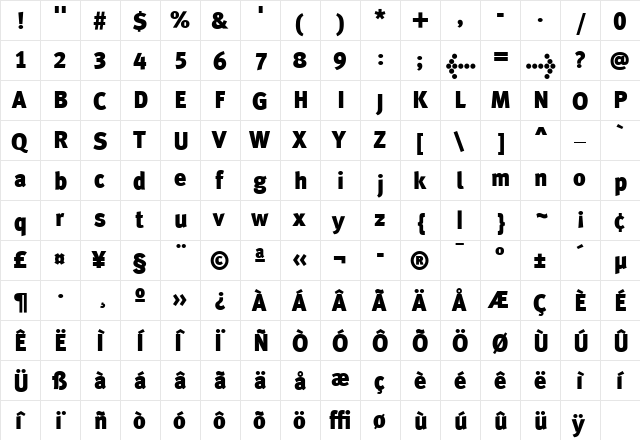
MetaPlusLining Black
Design Context for MetaPlusLining Typeface
MetaPlusLining takes a measured approach to typography — its balanced proportions and neutral character make it a reliable workhorse for both digital and print work.
Pro Tip: Pair MetaPlusLining with a font of contrasting weight or personality to build a more expressive typographic hierarchy.